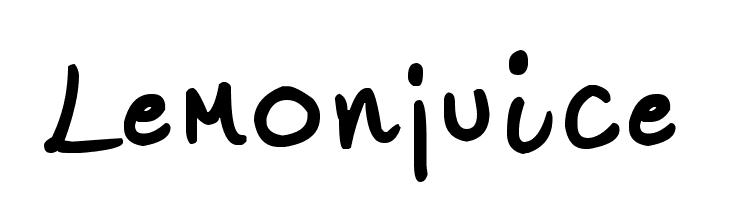
A playful, casual handwritten font with smooth curves and consistent strokes.
A bold, handwritten font with a playful and casual style.
A bold, playful font with a quirky, hand-drawn aesthetic.
A playful, hand-drawn font with a quirky and informal style.
A bold, handwritten font with a playful and dynamic style.
A playful, handwritten font with tall, narrow letters and a casual style.
A modern, condensed, and decorative font with tall, narrow characters.
A bold, playful font with rounded letterforms and a whimsical style.
A bold, playful font with rounded, whimsical letterforms.
A bold, energetic script font with fluid strokes and a playful style.